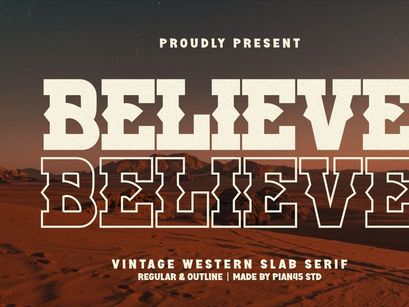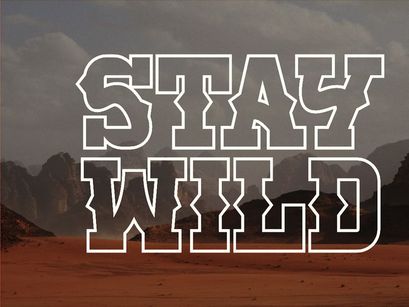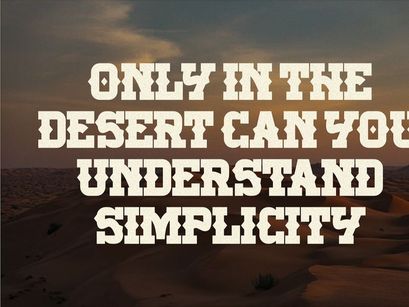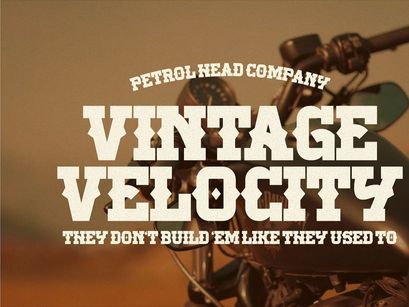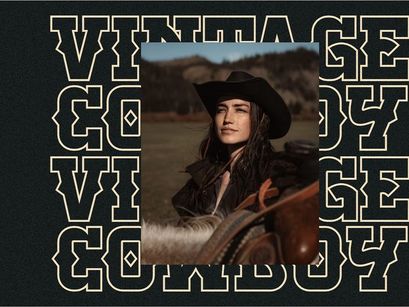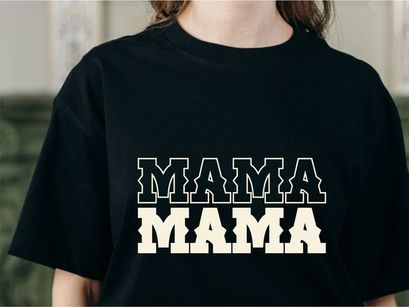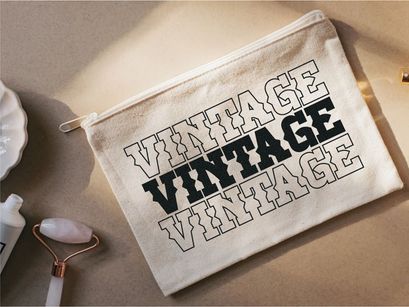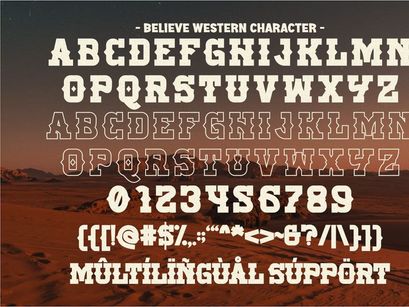
Believe - Vintage Western Slab Serif FontPremium
Believe - Vintage Western Slab Serif Font
Believe Western
Introducing BELIEVE, a powerful and rugged Vintage Western Slab Serif font that captures the timeless spirit of the wild west and classic American frontier typography. This bold, condensed typeface is engineered for high-impact display and gives your project an instant, authentic retro look.